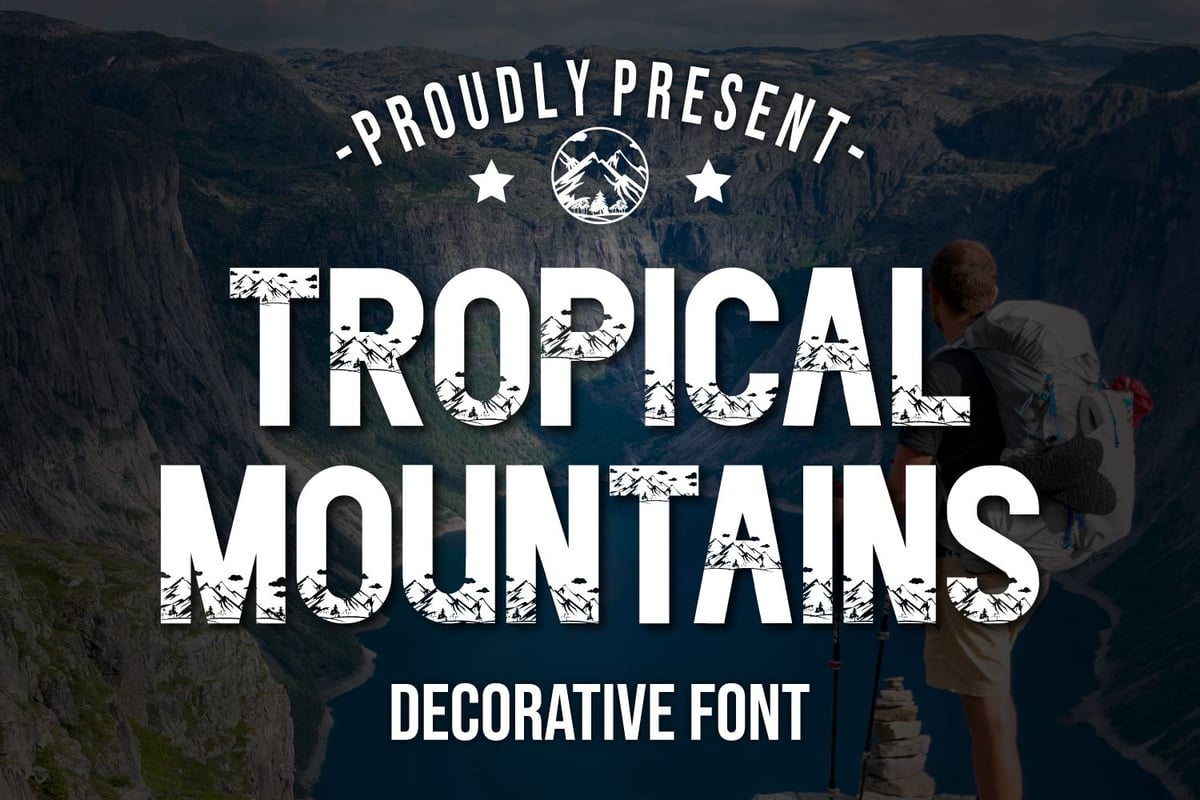
Bring the wild beauty of tropical mountain landscapes to life with this bold, adventure-driven decorative typeface.
The Tropical Mountains Decorative Font is a stunning typeface inspired by majestic peaks and dense foliage. Its intricate, textured letterforms capture a genuine sense of adventure and exoticism, making every word feel like an expedition into untamed wilderness.
This font is ideal for:
- Eye-catching titles and headlines
- Logos and brand identities
- Posters and promotional materials
- Creative projects evoking the allure of tropical mountain regions
With its unique, detailed letterforms and rugged character, this typeface is a powerful tool for designers looking to bring natural drama and visual impact to their work.